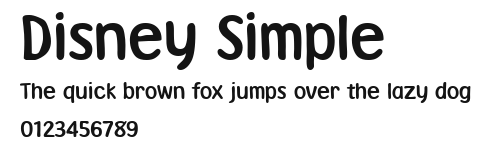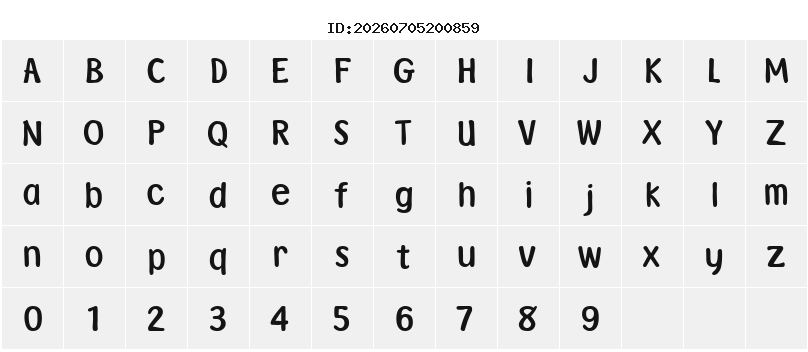
Disney Simple Preview
• Font Name: Disney Simple
• Font ID: Disney Simple
• Full Font Name: Disney Simple
• PostScript Name: DisneySimple
• Character Count: 251
• Manufacturer: International Typeface Corporation
About Disney Simple.ttf
Disney Simple.ttf is a modern, elegant sans-serif font designed for ultimate readability and visual harmony. Perfect for branding, headlines, web design, and print materials.